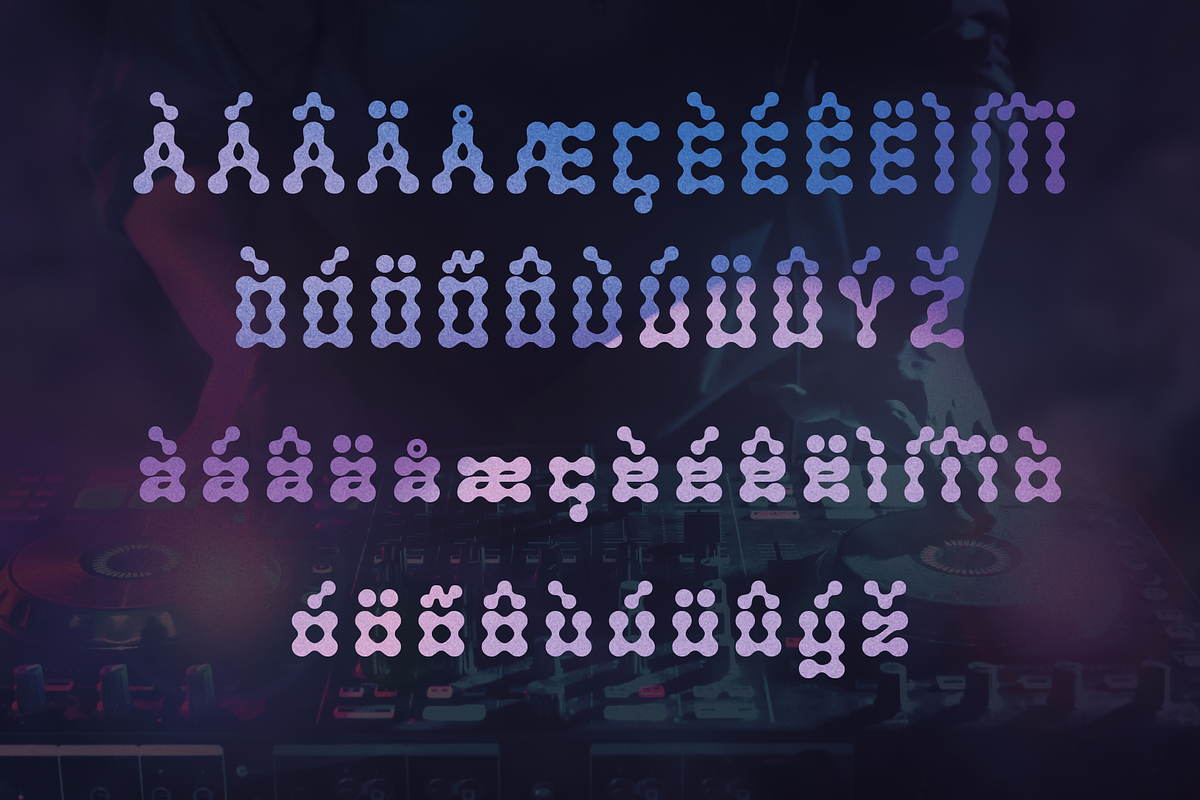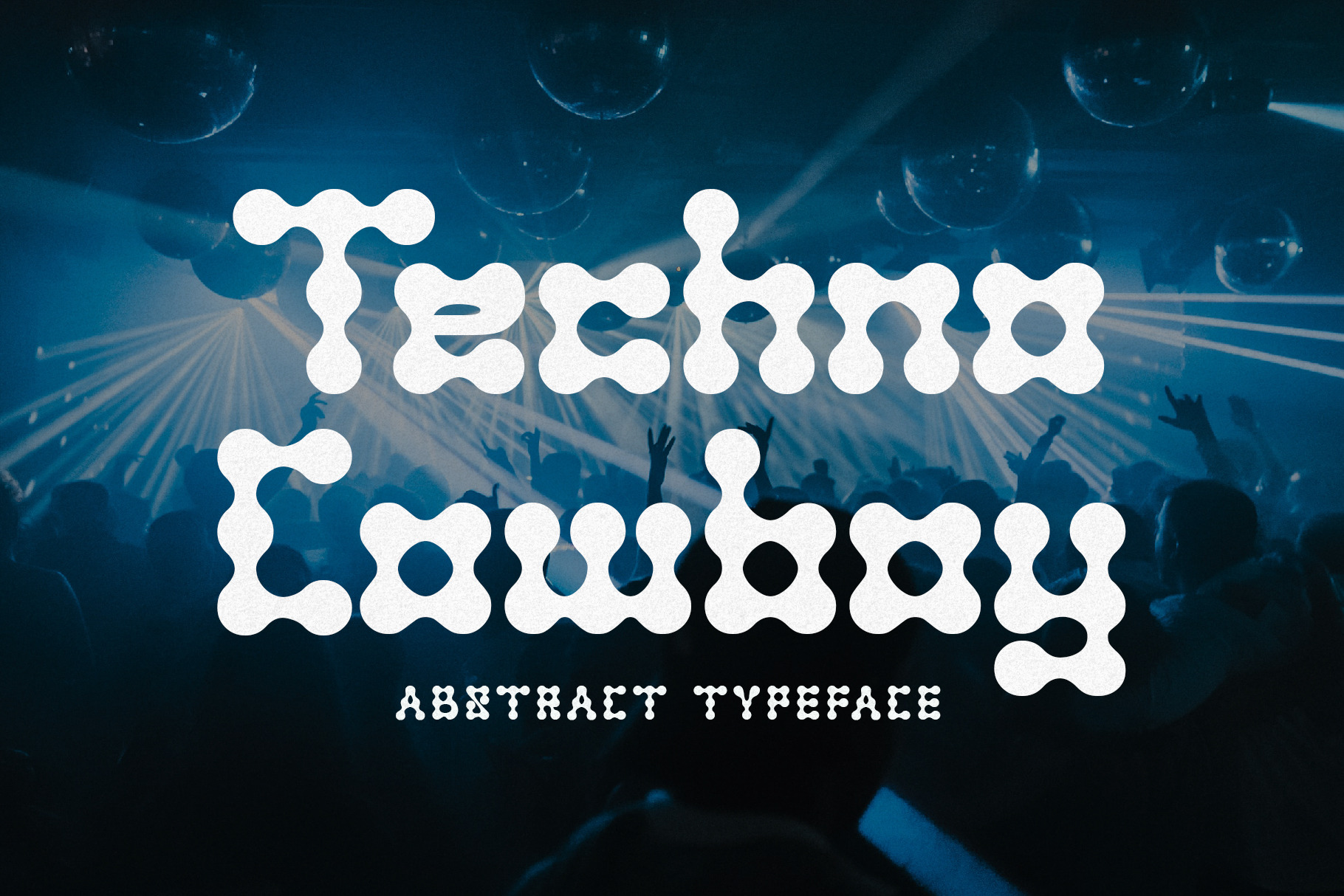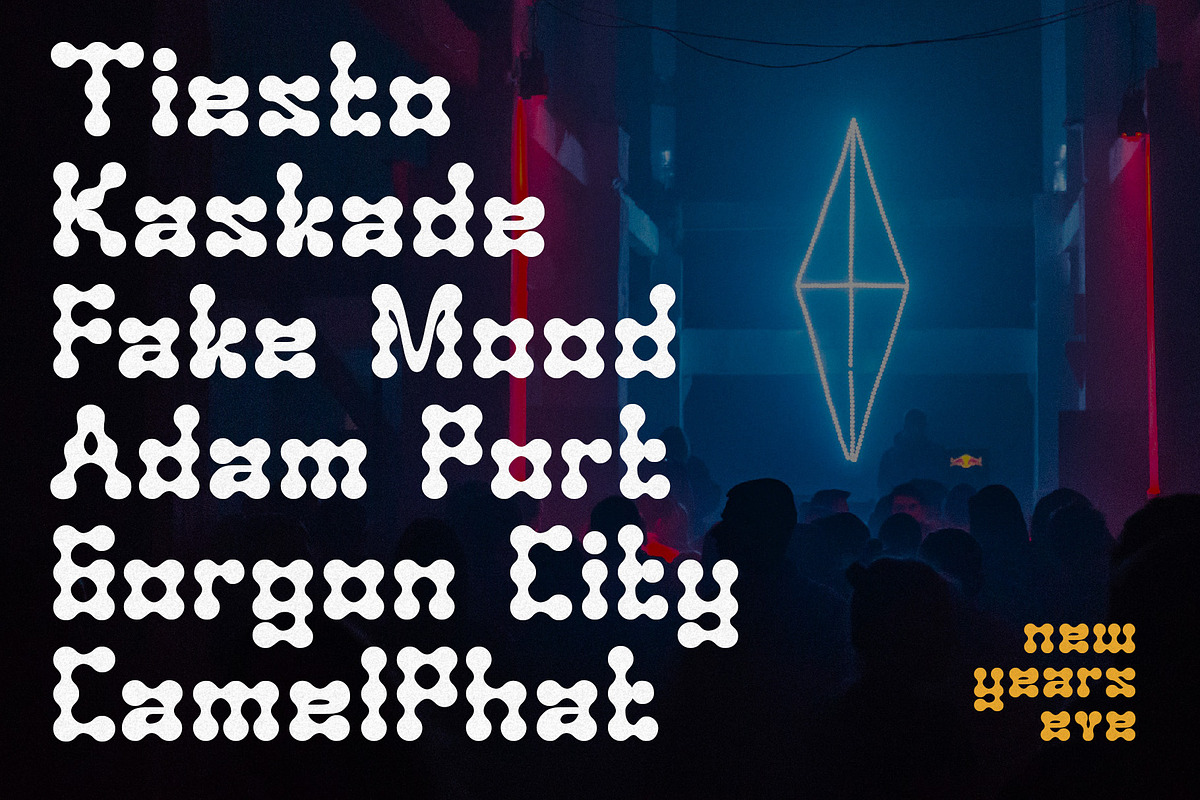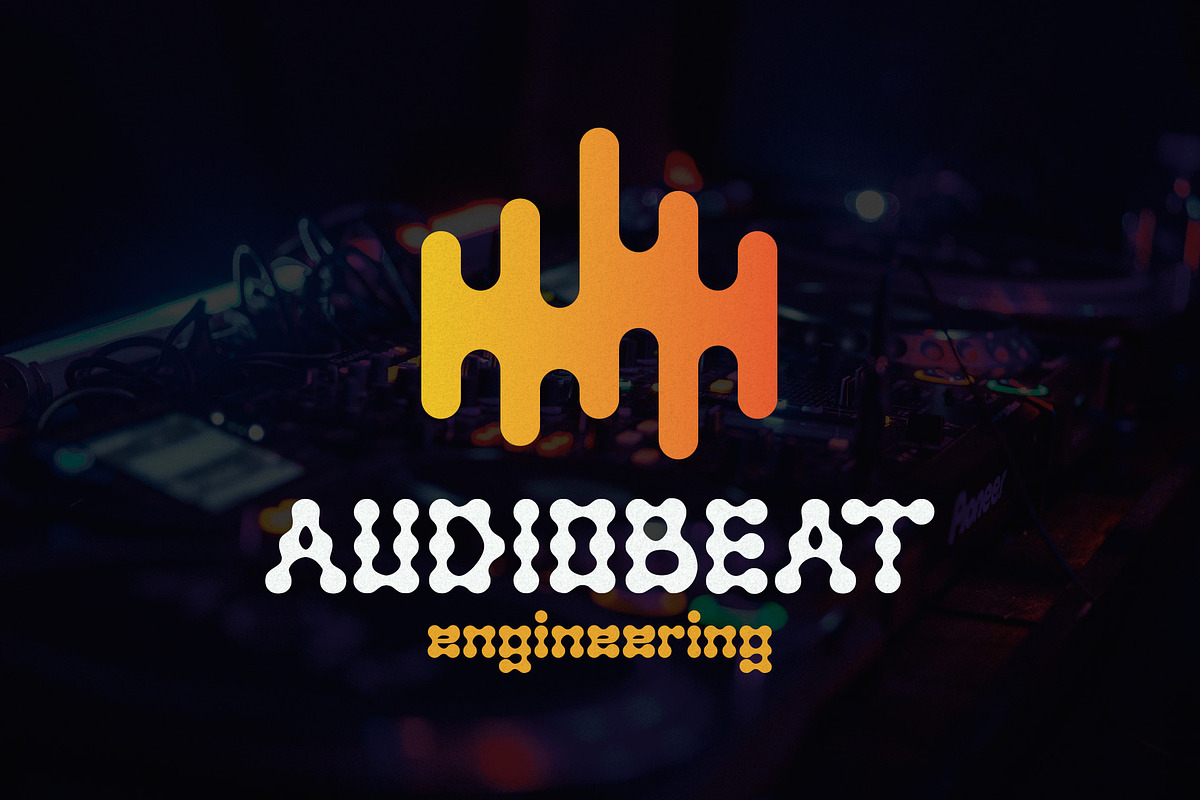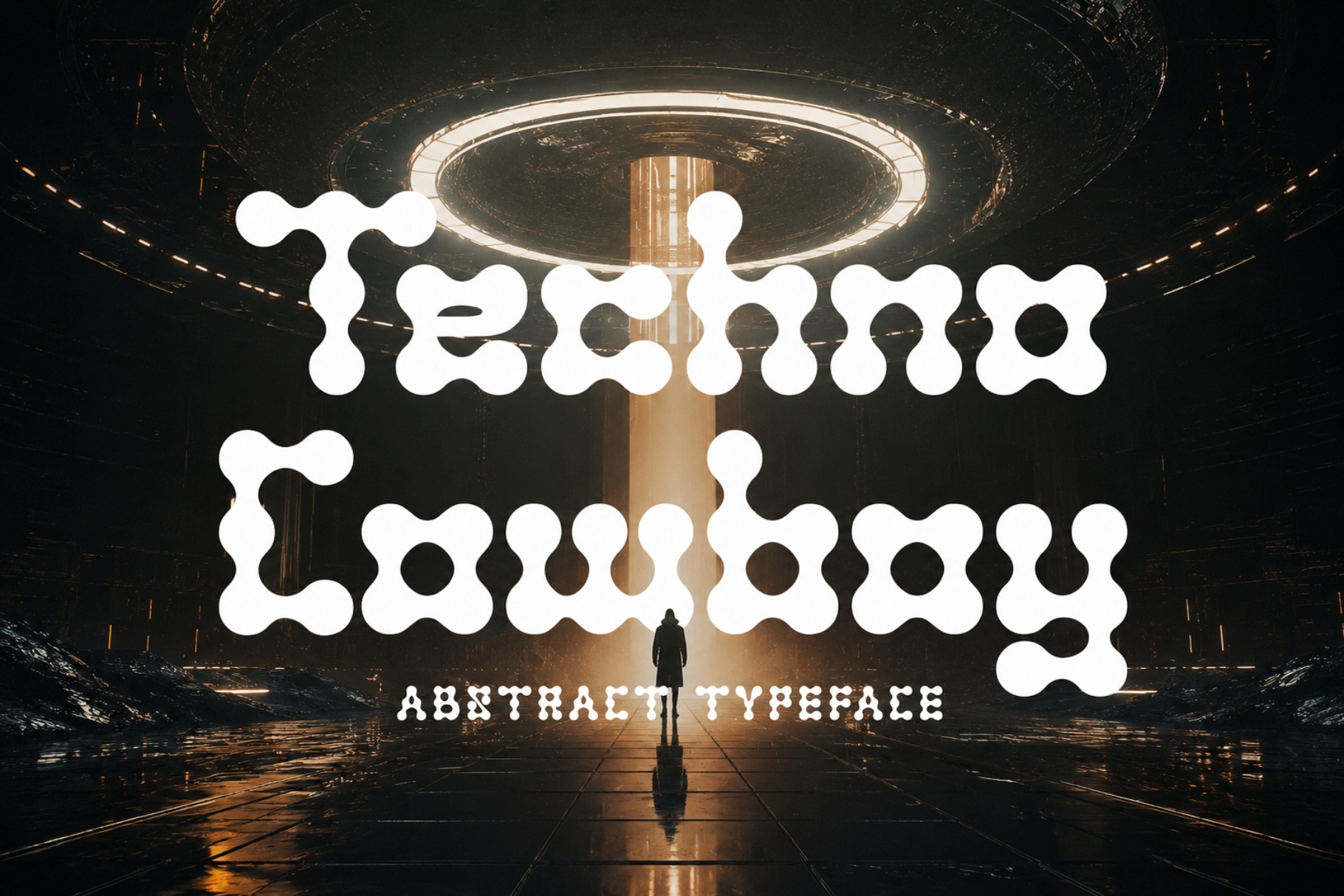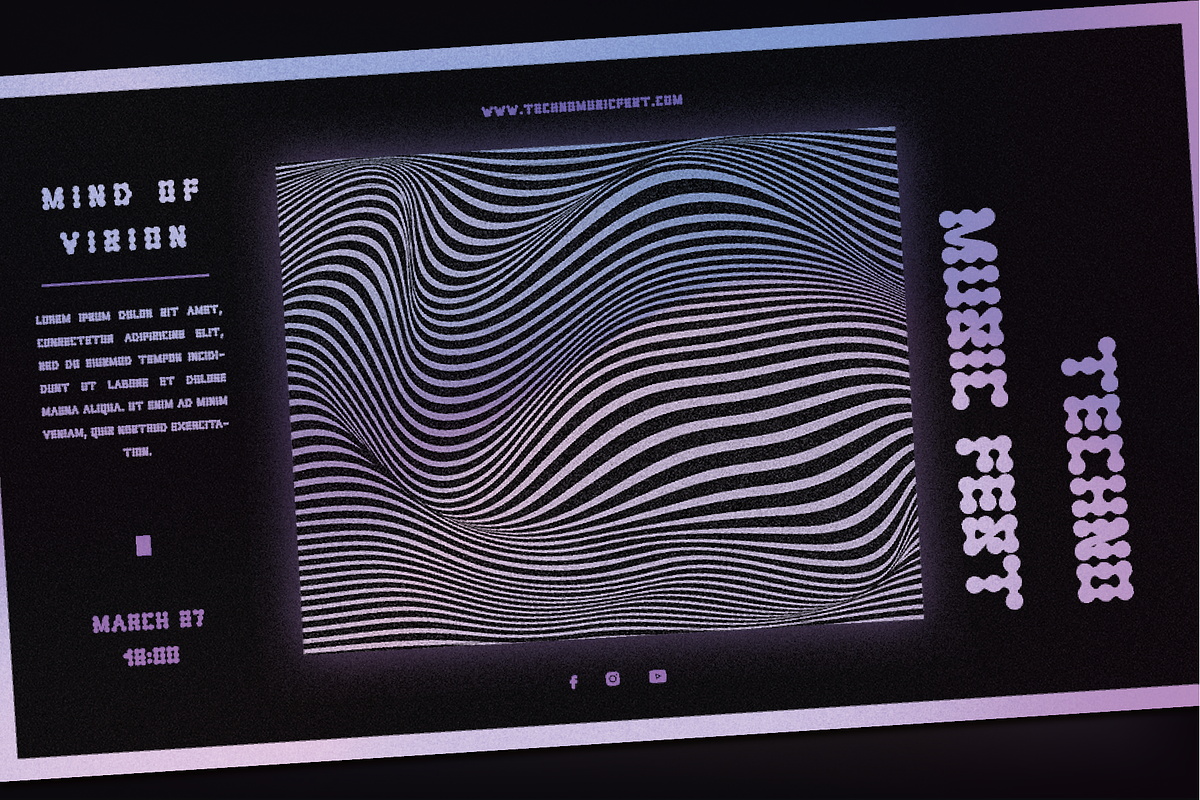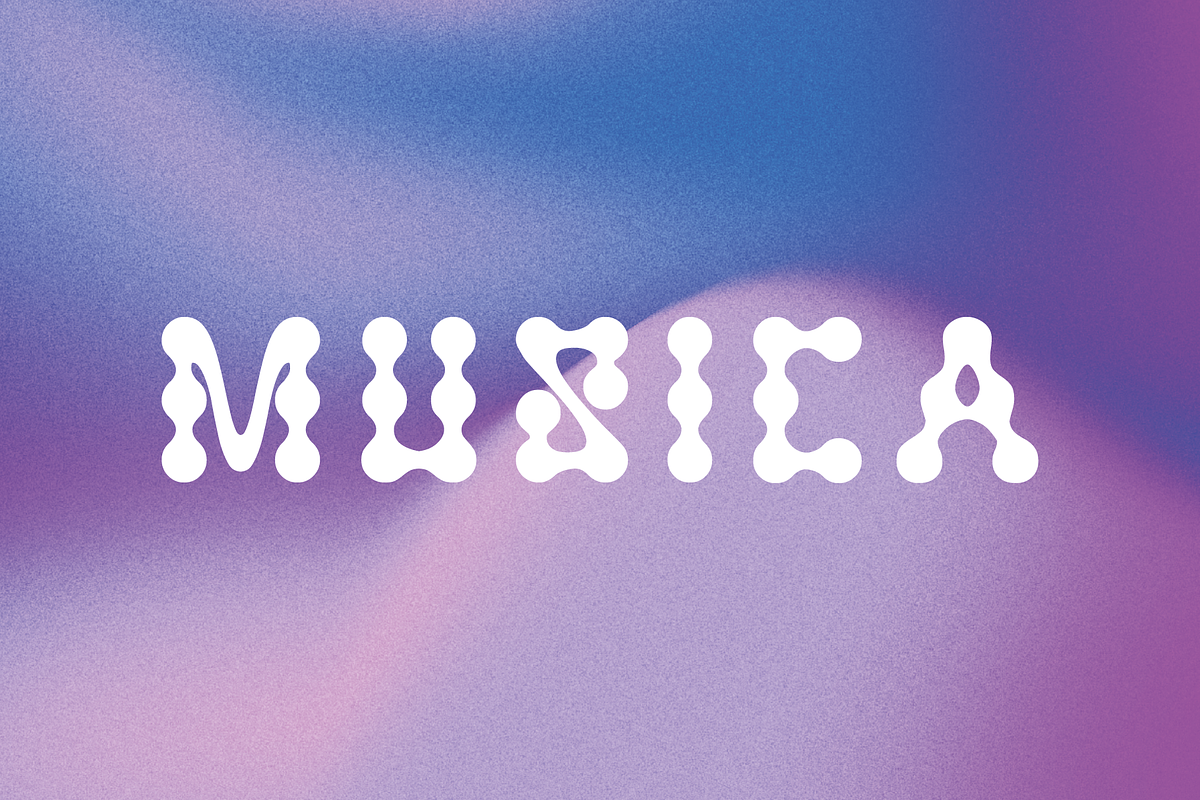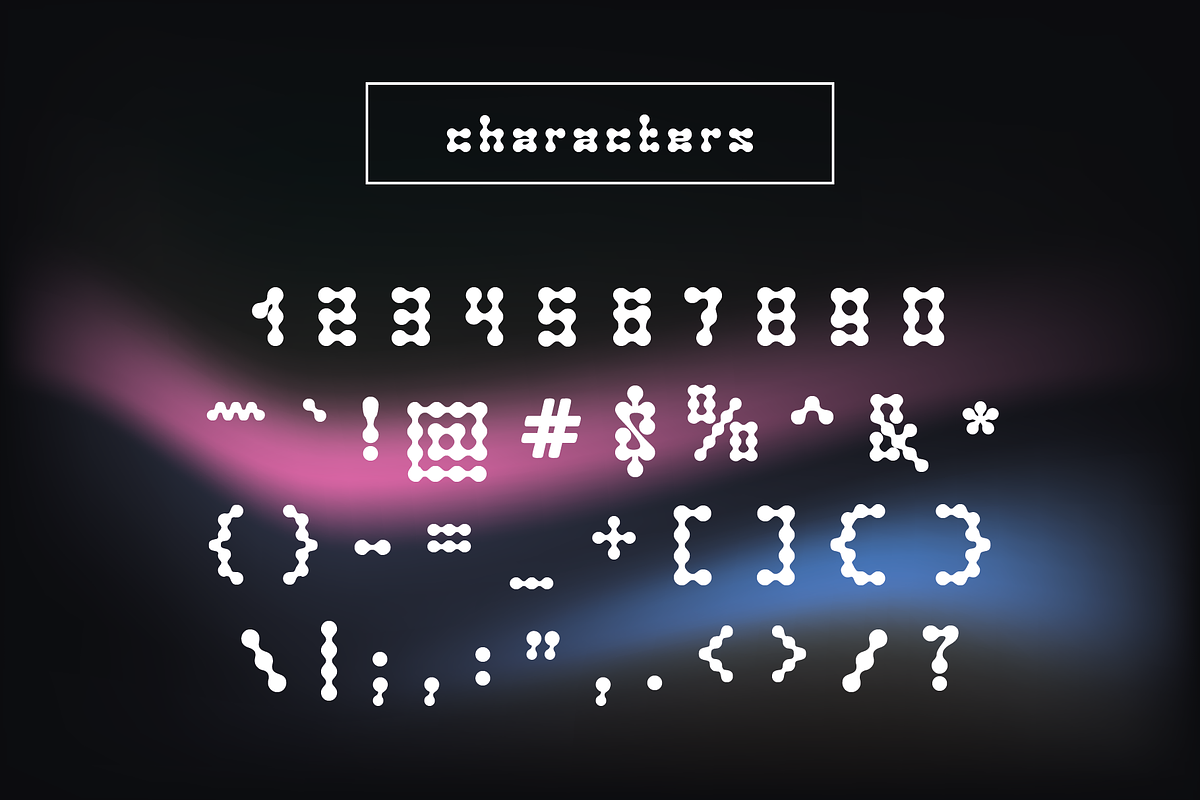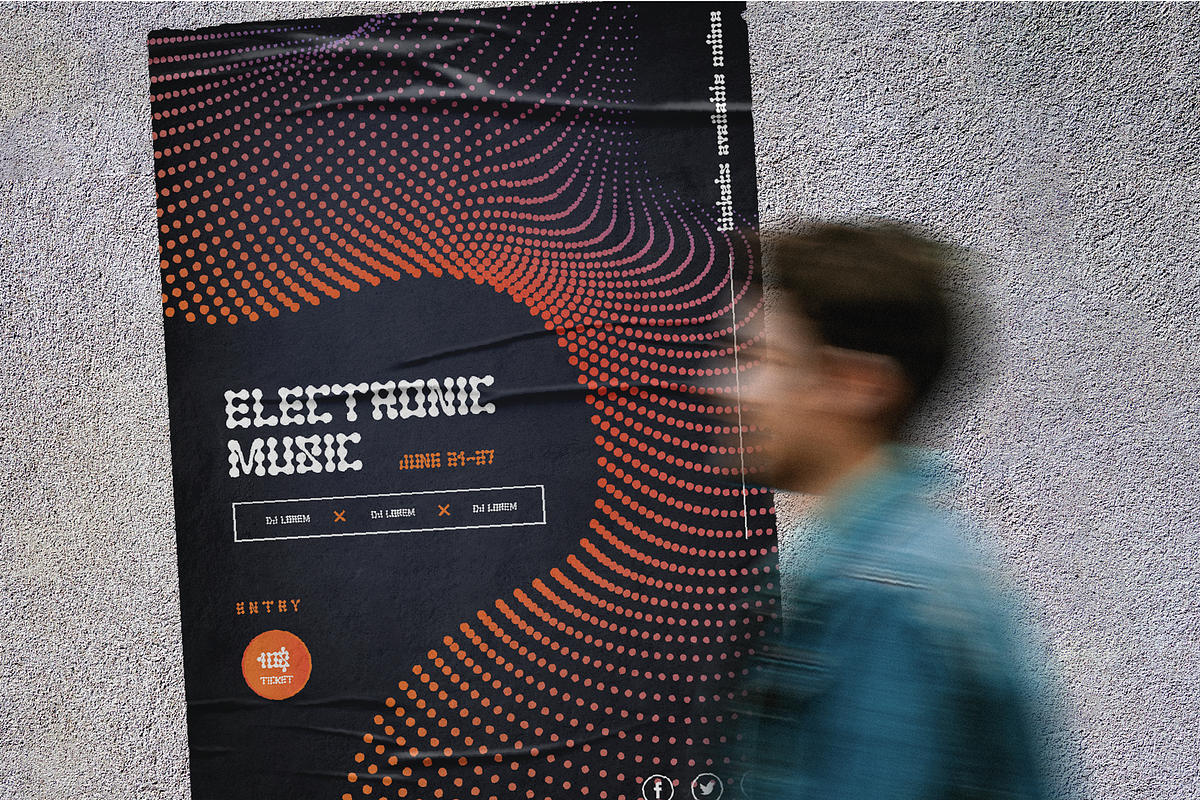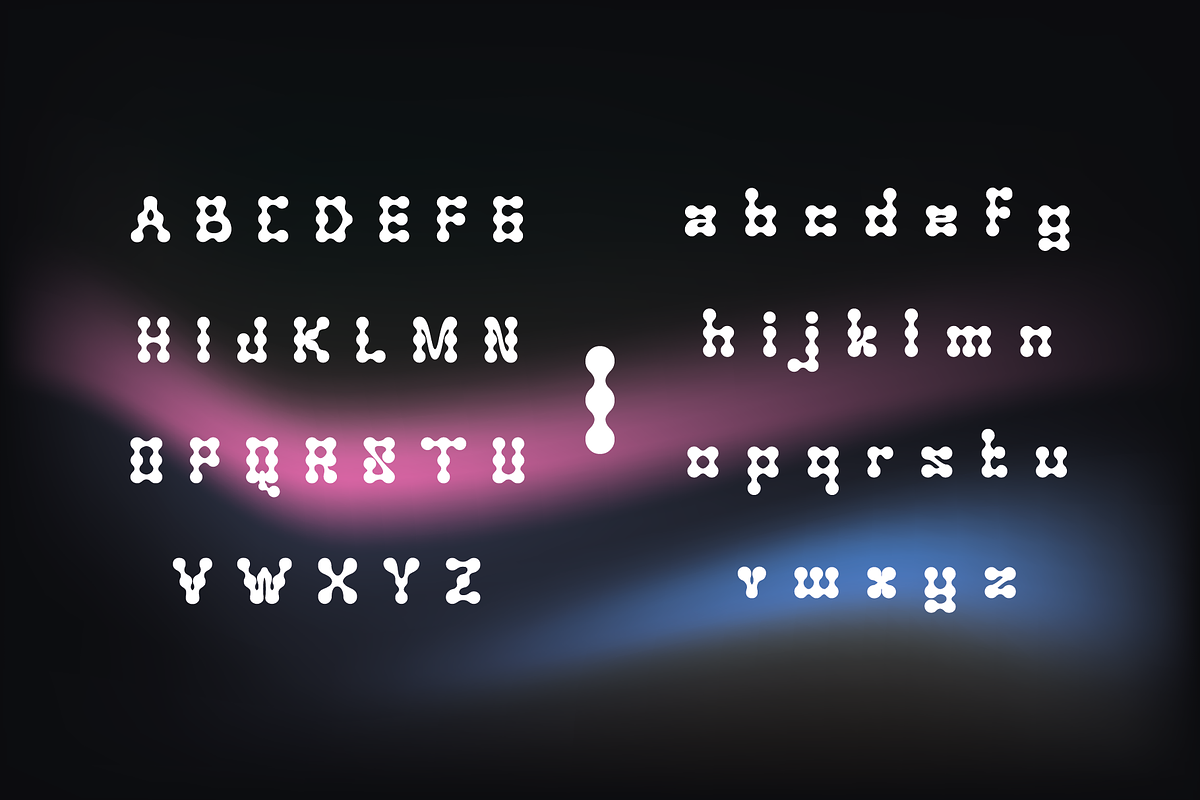
Techno Cowboy - Modular Typeface
Introducing Techno Cowboy, a modern techno display font with multilingual support. Techno Cowboy is great for creating eye-catching logos, headlines, ads, posters, web design, print, motion graphics, apparel and much more. If you're looking for a futuristic font that packs a punch, then Techno Cowboy is for you.